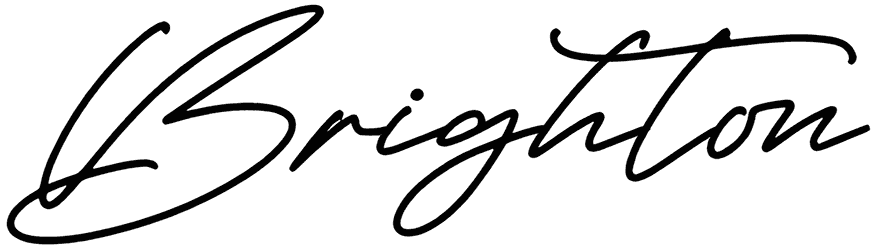
Brighton Font
For projects that need to be glossy, Brighton can be helpful in terms of drawing everyone’s attention and interest. The full, complete letters in this signature font put on a charm to drive any undertaking from kickoff to launch.
This handwritten font is trying to give potential hopefuls an opportunity to stand out from others. Try it on many invitations, posters, packaging, and more, and see how it sounds pleasing. It lacks readability, yet it’s in the lead!